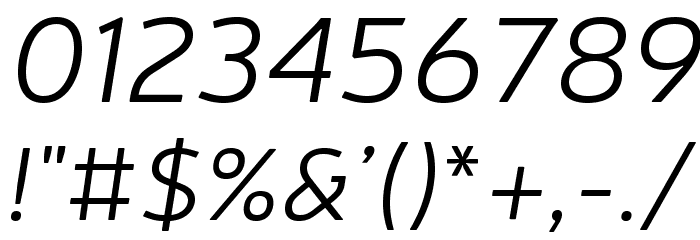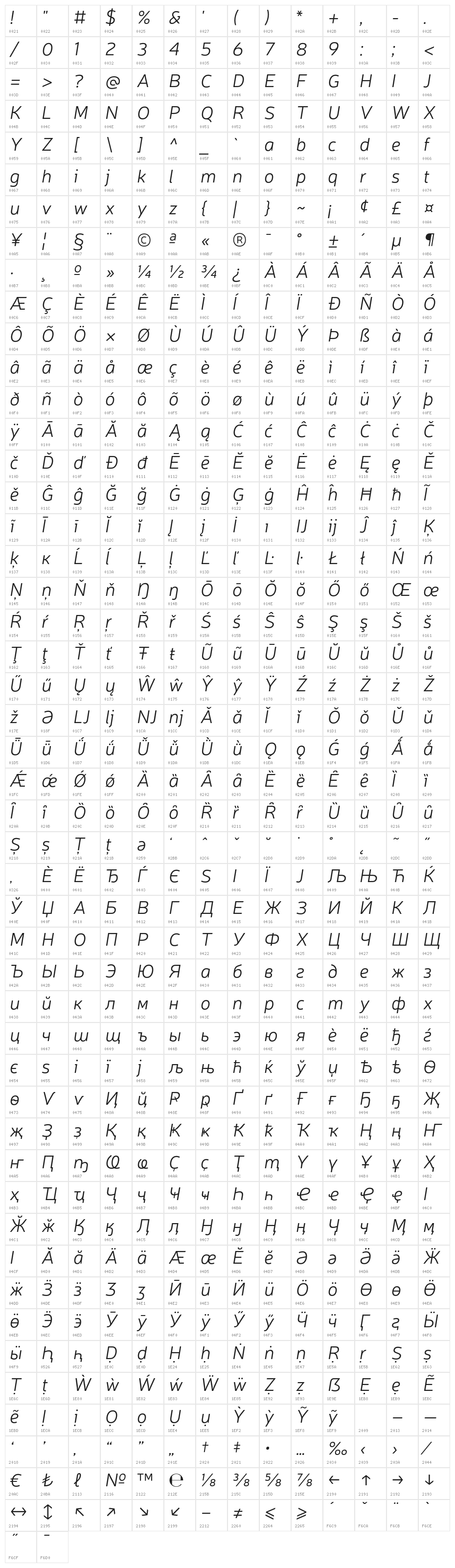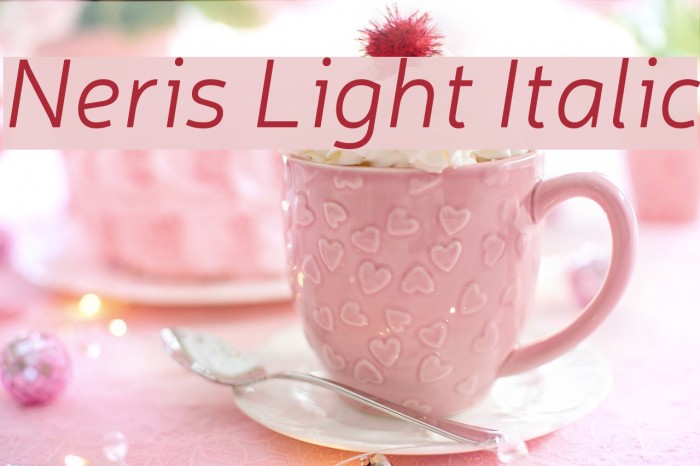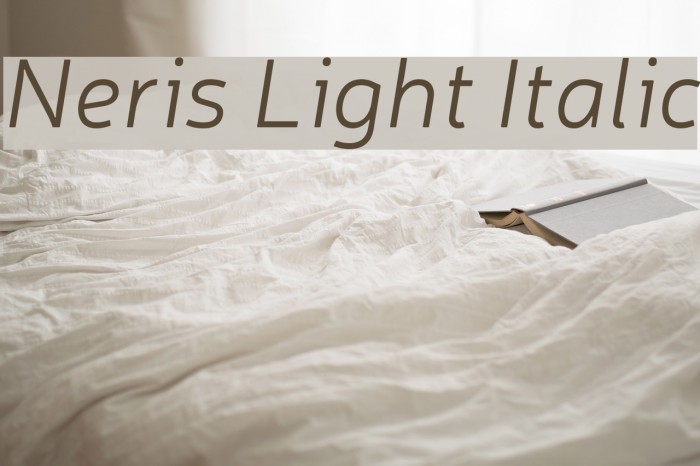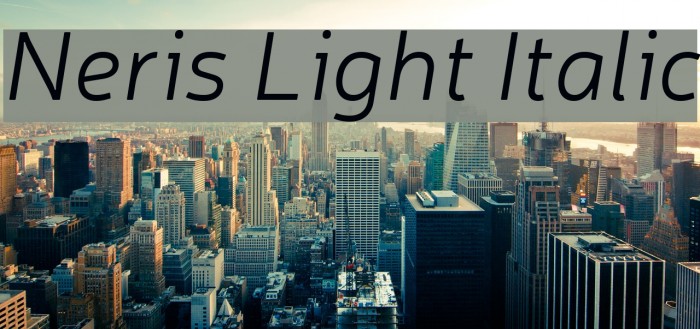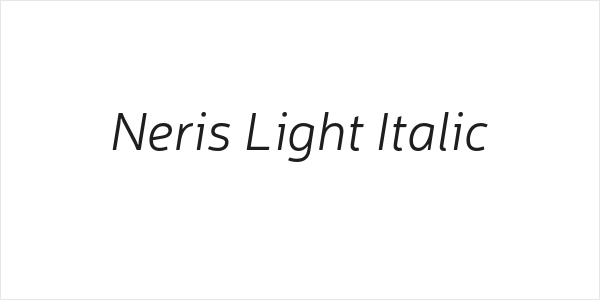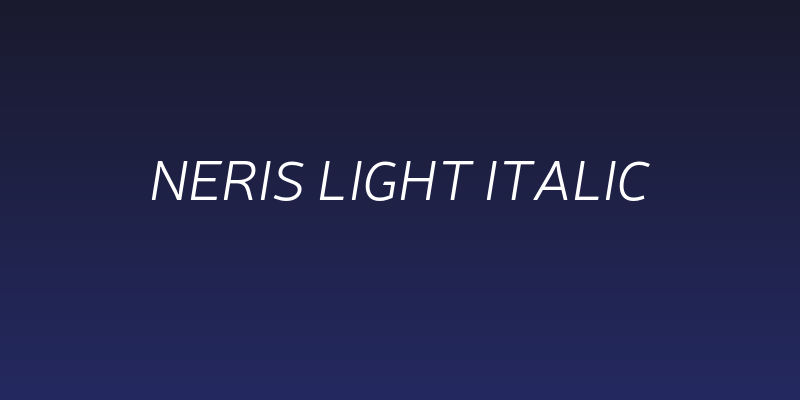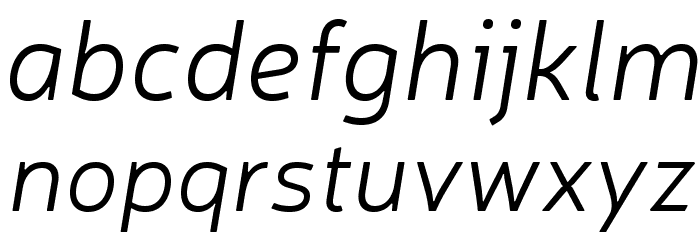
Neris Light Italic Font
Neris Light Italic Description
This font exhibits a sleek and modern design with a light and airy feel. The characters are slightly slanted, giving it an italic style that adds a sense of motion and elegance. The strokes are consistent and smooth, with a uniform thickness that maintains readability while providing a contemporary aesthetic. The spacing between characters is balanced, ensuring clarity and legibility. This font is versatile, suitable for both digital and print media, and can be used to convey a professional yet approachable tone.